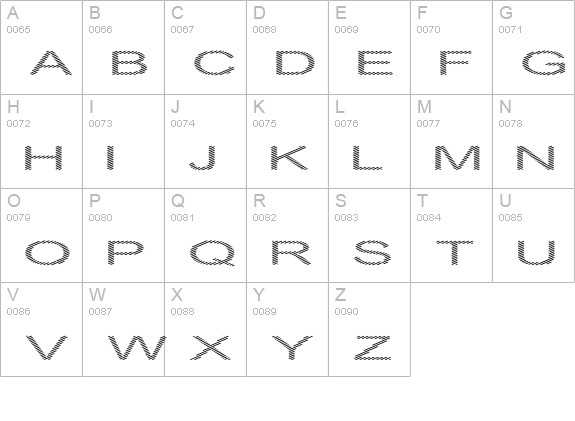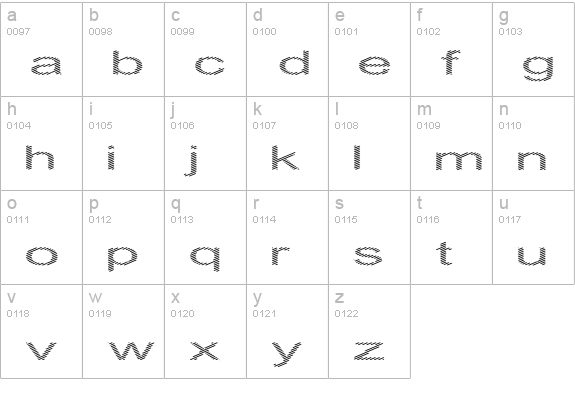
Inningham spread Font Details
Introducing the captivating Inningham Spread font, a stunning typeface that effortlessly combines elegance with modernity. With its unique and sophisticated design, this font is perfect for adding a touch of class to any project. Inningham Spread offers a wide range of versatility, making it suitable for various purposes such as branding, logo design, packaging, headlines, and more. Its clean lines and balanced letterforms create a harmonious composition, ensuring legibility and readability in any size or context. What sets Inningham Spread apart is its irresistible charm and timeless appeal. Each character is meticulously crafted, showcasing beautiful curves and graceful strokes that add a touch of sophistication to your designs. Whether used for print or digital media, this font is sure to make a lasting impression. And the best part? Inningham Spread is available for free download exclusively at FontsMarket.com. That's right, you can enjoy this exceptional font without spending a dime. Simply head over to FontsMarket.com and unlock the endless possibilities that this font has to offer. So why wait? Elevate your designs to new heights with Inningham Spread. Download it now and let your creativity shine with this freely accessible gem in the world of typography.